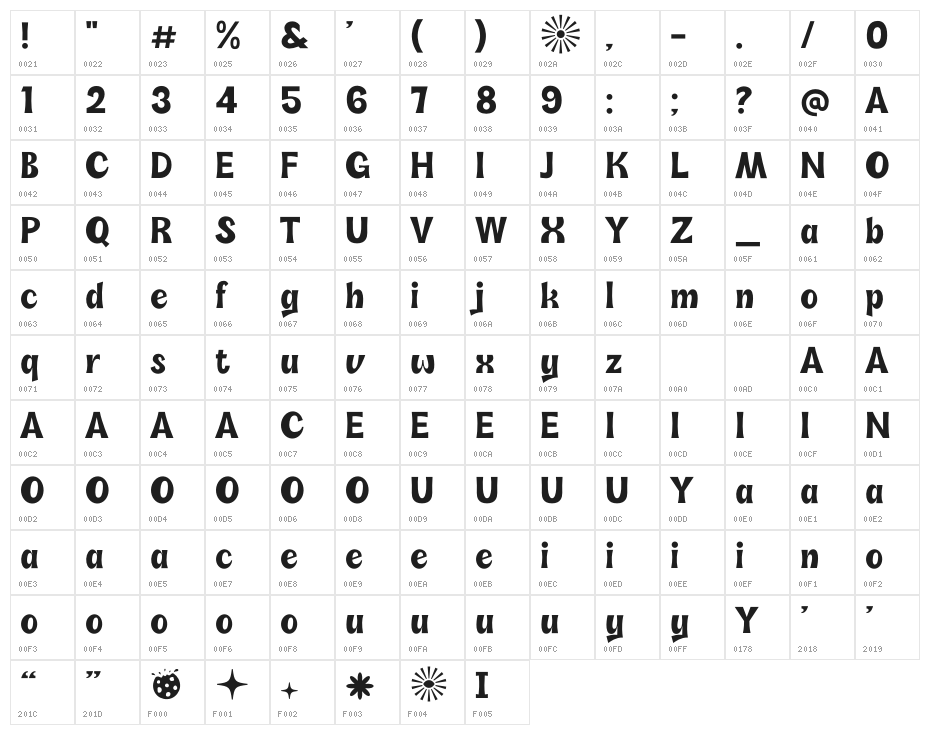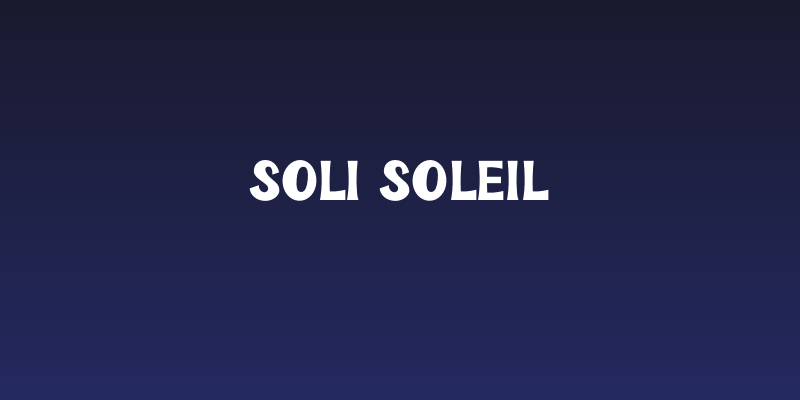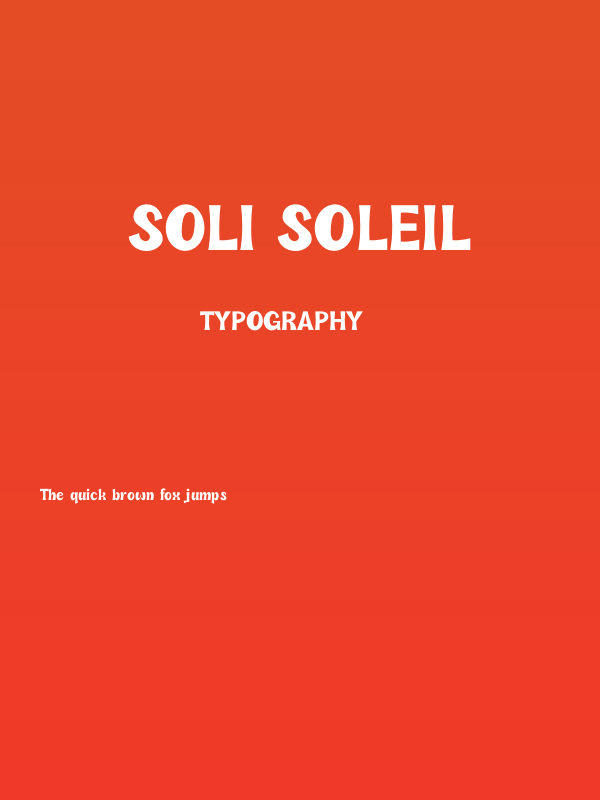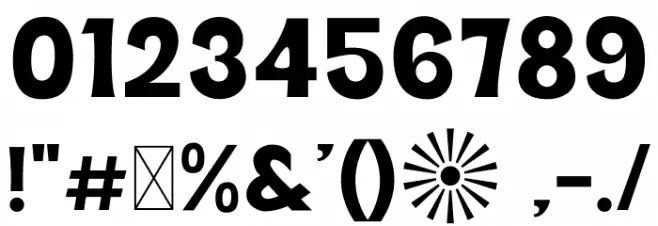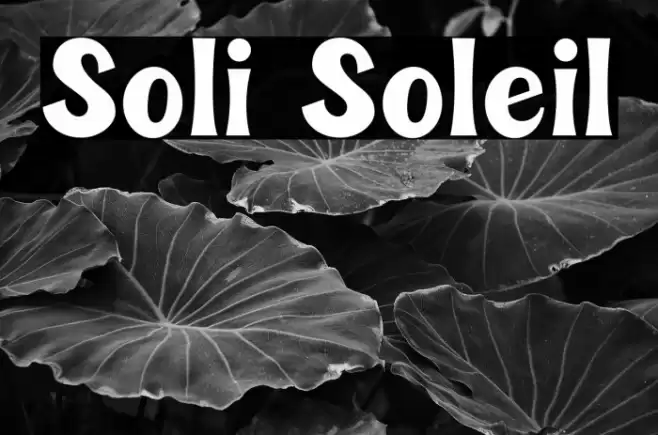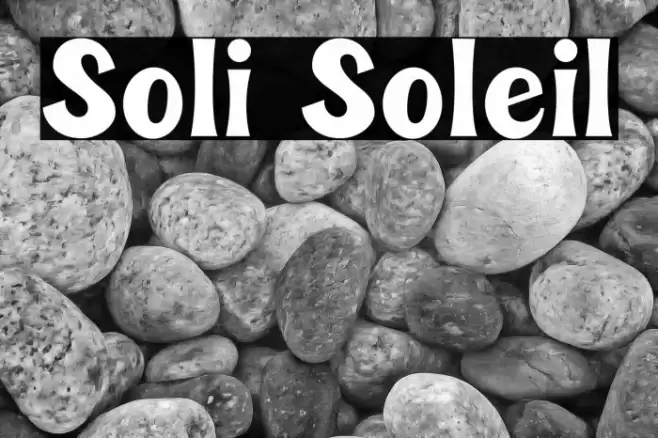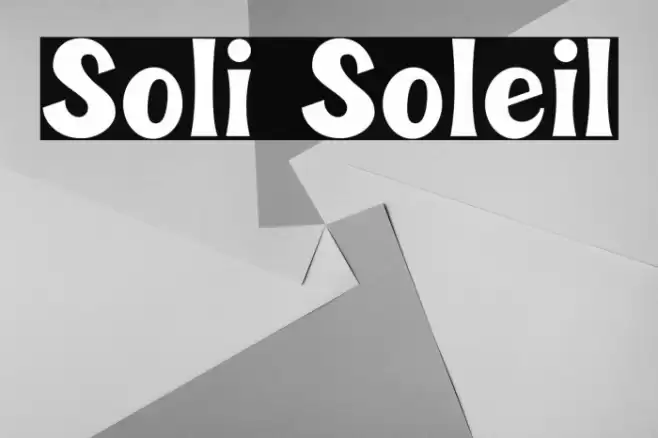
Soli Soleil Font
Soli Soleil Description
This font features a playful and dynamic style with a bold presence. The characters exhibit a unique flair with slightly exaggerated curves and angles, giving it a whimsical and artistic feel. The uppercase letters are robust and commanding, while the lowercase letters maintain a consistent style with a touch of elegance. The numerals are clear and bold, ensuring readability. Special characters are creatively designed, adding to the font's overall charm. This font is perfect for projects that require a lively and engaging typeface.
| Proposed Projects | Ideal for children's books, playful branding, posters, and creative invitations. |